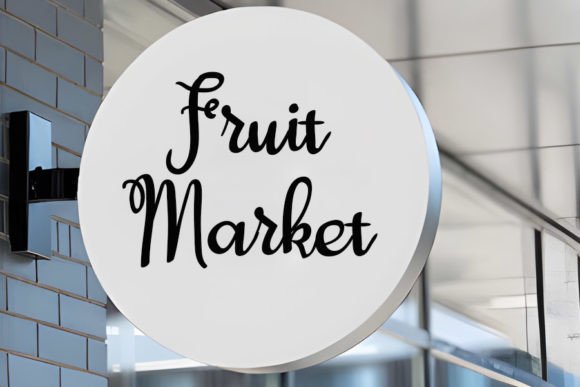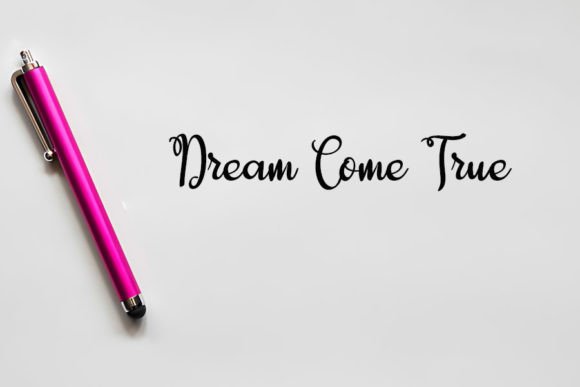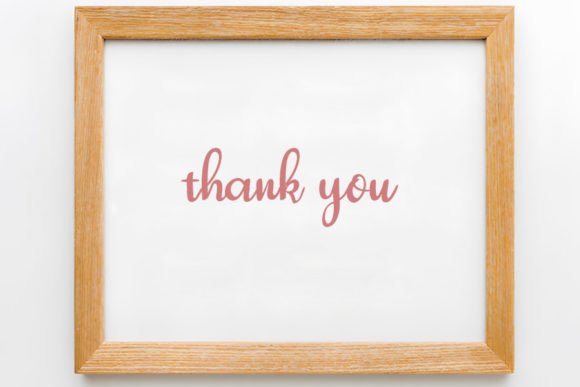
Introducing Apple Farm Font: Elevate Your Designs with Elegance and Class
In the world of typography, few fonts manage to capture the essence of elegance and class as effortlessly as Apple Farm Font. This lovely and delicate handwriting font is specifically designed for individuals who seek to infuse their designs with a refreshing and beautiful aesthetic. Whether you’re a designer looking to enhance your project or a crafter aiming to add a personal touch to your creations, Apple Farm Font is an excellent choice.
The Charm of Apple Farm Font
Apple Farm Font stands out due to its unique blend of simplicity and sophistication. The font’s handwriting style gives it a personal and intimate feel, making it perfect for a wide range of applications, from wedding invitations and greeting cards to branding and packaging. Its delicate strokes and elegant curves bring a touch of refinement to any design, ensuring that your work stands out in a crowd.
Key Features of Apple Farm Font
- Delicate Handwriting Style: The font’s handwriting style is both charming and sophisticated, adding a personal touch to your designs.
- Elegant and Classy: Apple Farm Font exudes elegance and class, making it suitable for high-end projects and personal crafts.
- Versatile: This font can be used across various platforms and in multiple design contexts, from digital media to print.
- Easy to Read: Despite its delicate nature, Apple Farm Font remains clear and easy to read, ensuring your message is communicated effectively.
- Customizable: The font can be easily customized to fit your project’s specific needs, allowing for creative freedom.
Uses of Apple Farm Font
The versatility of Apple Farm Font makes it suitable for a myriad of design projects. Here are some popular uses:
- Wedding and Event Planning: Use Apple Farm Font in wedding invitations, save-the-date cards, and event programs to set a romantic and elegant tone.
- Branding and Packaging: Add a touch of class to your brand’s identity and packaging with this sophisticated font.
- Stationery and Greeting Cards: Create beautiful and heartfelt stationery and greeting cards that stand out.
- Digital Media: Enhance your website, blog, or social media graphics with a font that exudes elegance and refinement.
- Crafting Projects: Perfect for crafters, Apple Farm Font can be used in scrapbooking, DIY crafts, and other handmade projects.
Tips for Using Apple Farm Font
To maximize the impact of Apple Farm Font in your designs, consider the following tips:
- Pair with Complementary Fonts: Combine Apple Farm Font with simpler fonts to create contrast and hierarchy in your design.
- Adjust Font Sizes: Play with different font sizes to emphasize certain parts of your text and create visual interest.
- Use High-Quality Imagery: When using Apple Farm Font in projects that include images, ensure the images are of high quality to maintain a professional look.
- Consider Color Schemes: Choose color schemes that complement the elegance of Apple Farm Font, such as pastels, neutrals, or rich jewel tones.
| Font Name | Apple Farm Font |
| Author | Emily Store |
Apple Farm Font is a beautiful and versatile handwriting font that can elevate your designs with its elegant and classy appeal. Whether you’re working on professional projects or personal crafts, this font offers the perfect blend of sophistication and charm. With its wide range of applications and ease of use, Apple Farm Font is sure to become a favorite in your typography arsenal.